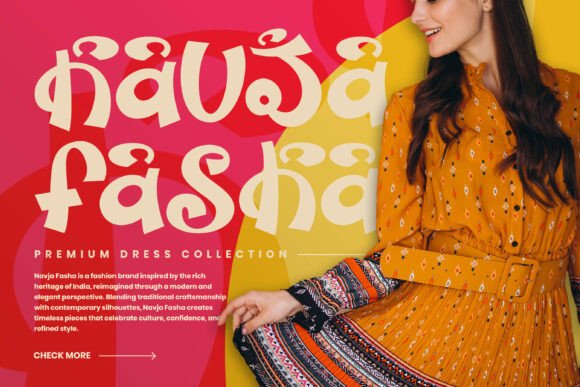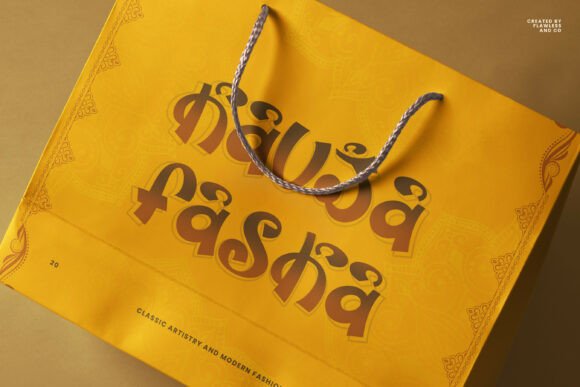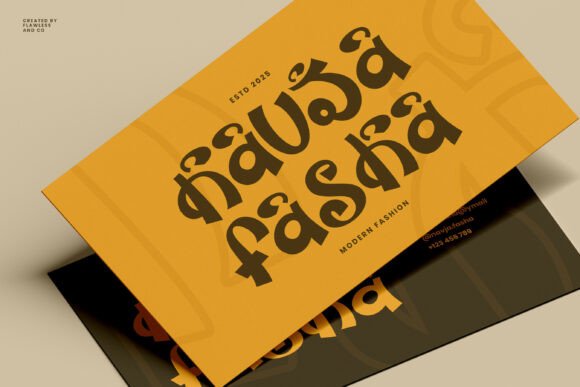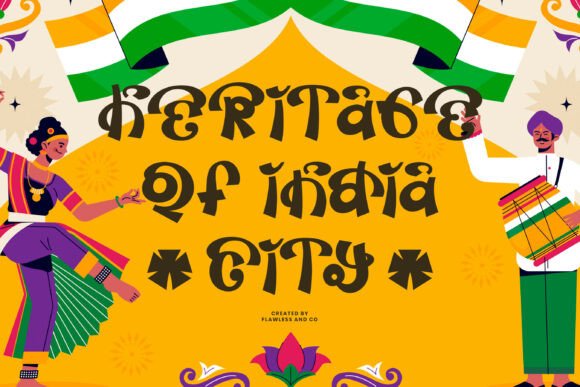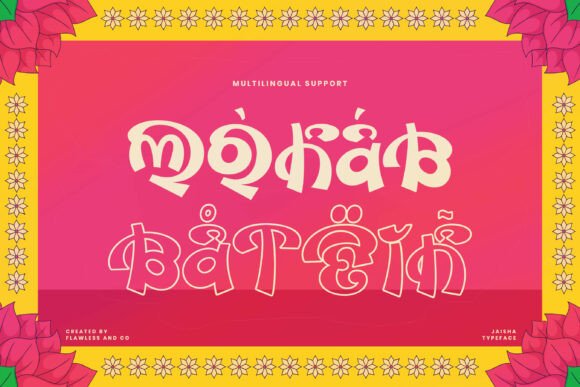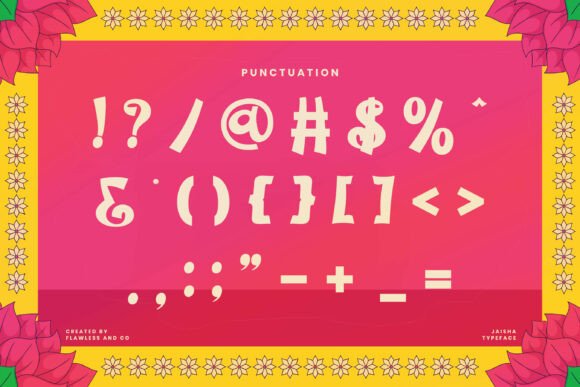
Introduction to Jaisha Font
As a designer, have you ever stumbled upon a font that perfectly captures the essence of a cultural celebration? For me, that moment came when I discovered the Jaisha Font – a vibrant and expressive Hindi display typeface that transported me to the vibrant streets of India during the Diwali festival. The Jaisha Font’s bold shapes, playful curves, and expressive letterforms seemed to dance on the screen, begging to be used in a creative project.
With its unique blend of traditional Indian culture and modern design sensibilities, the Jaisha Font is a valuable resource for designers seeking to add an authentic touch to their work. Whether you’re working on a branding project, creating event designs, or packaging products with an Indian twist, this font is sure to bring a high-quality and eye-catching element to your design.
Key Features of Jaisha Font
- High-quality, unique font design ideal for creative projects and design resources.
- Transparent background, allowing for easy integration into designs with complex backgrounds.
- Includes a comprehensive character set, including Latin, Cyrillic, and Greek alphabets.
- Supports a wide range of languages, making it a versatile design resource.
- Designed with high-resolution graphics (300 DPI), ensuring crisp and clear text output.
Honest Review: Jaisha Font
As a designer, I’m always on the lookout for high-quality design resources to elevate my creative projects. The Jaisha Font caught my eye with its unique and elegant design.
What works well: ✨ The Jaisha Font has a transparent background, making it easy to use in various design applications. The font is also highly legible, even at small sizes, which is perfect for digital design projects. The font’s versatility is another major plus – it works well for both body text and headings.
What could be improved: ⚠️ The Jaisha Font lacks a wide character set, which might be a limitation for designers working on projects that require a lot of languages. Additionally, the font’s style is quite specific, which might not appeal to everyone.
- Unique and elegant design
- Highly legible, even at small sizes
- Works well for digital design projects
Jaisha Font
The Jaisha Font is a versatile and high-quality design resource that can elevate any creative project. With its transparent background, this font can be easily integrated into various design tools.
Getting the Most Out of Jaisha Font
For optimal results, use Jaisha Font in conjunction with a high-quality image or background. Experiment with different font sizes and colors to create a unique design.
Jaisha Font is ideal for: